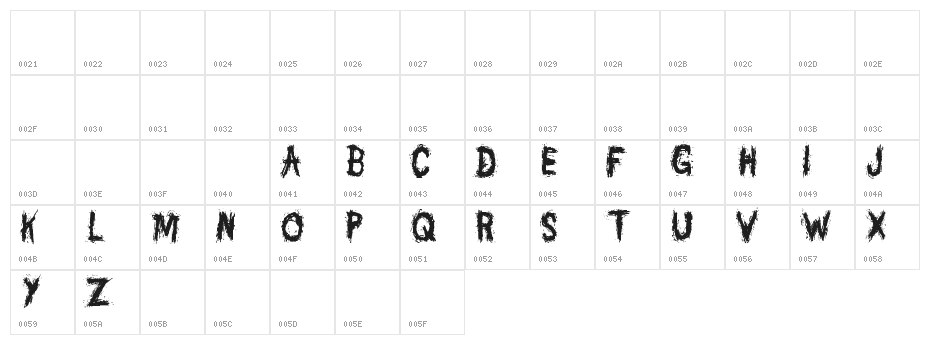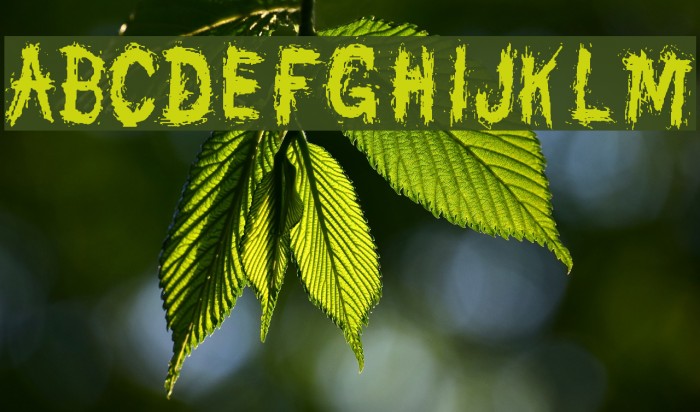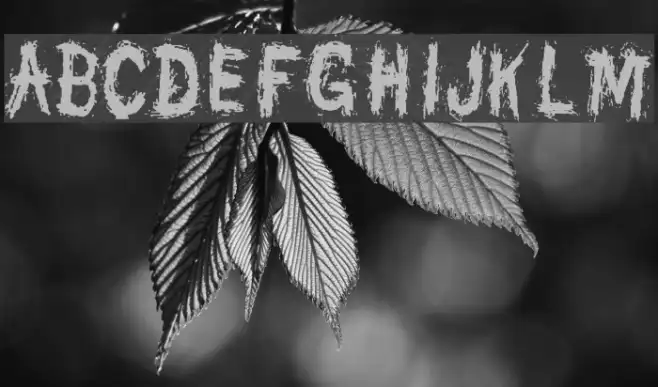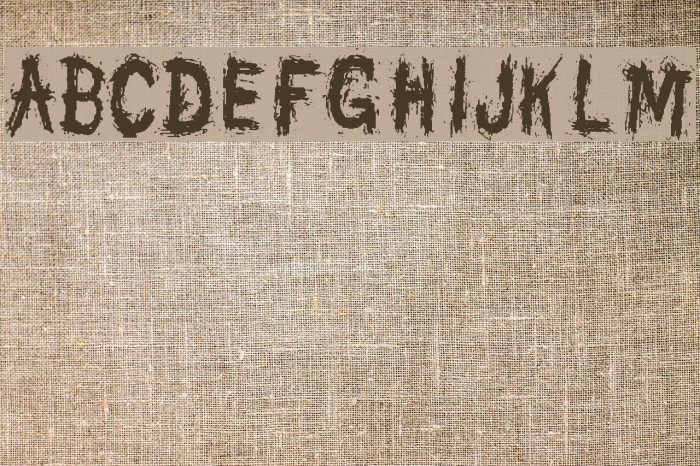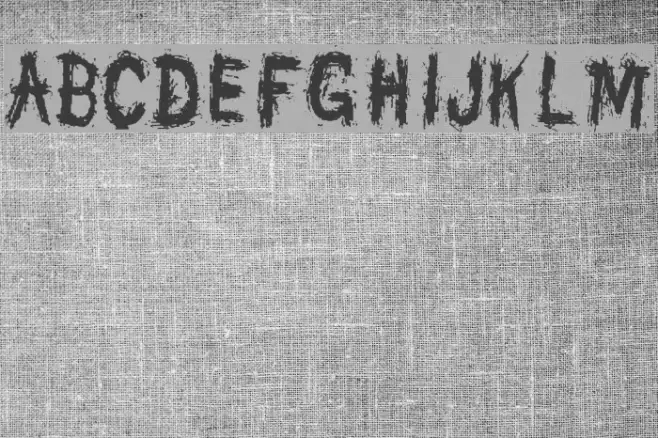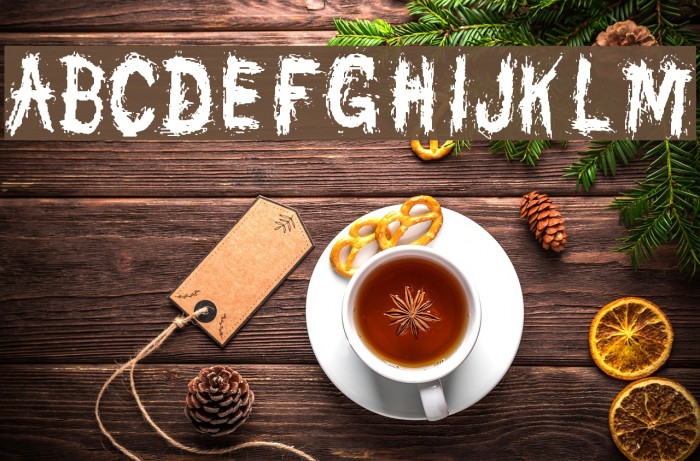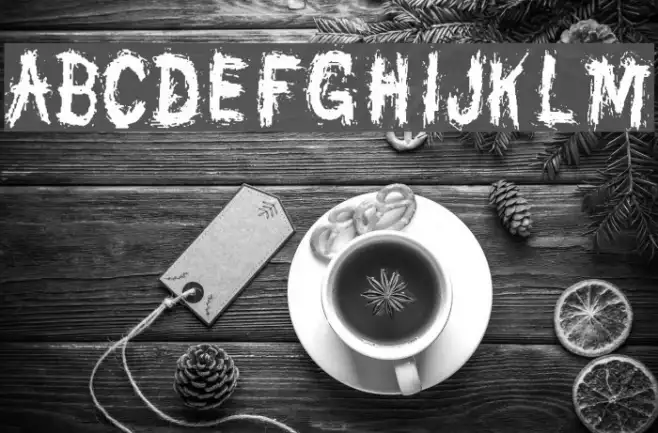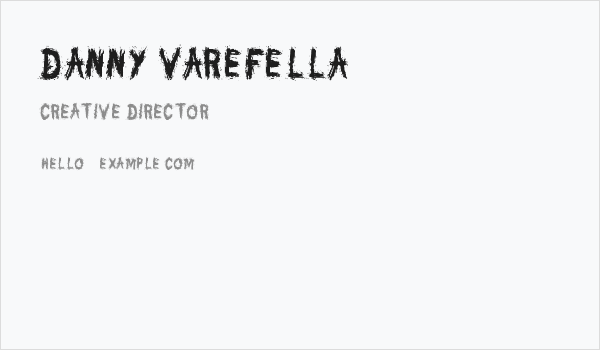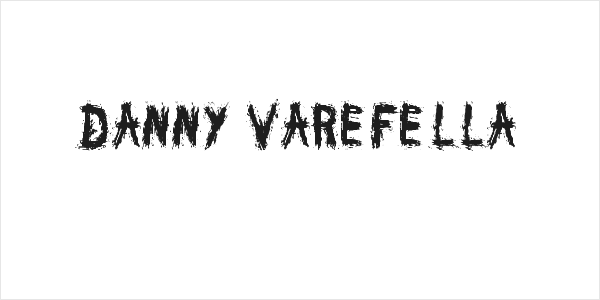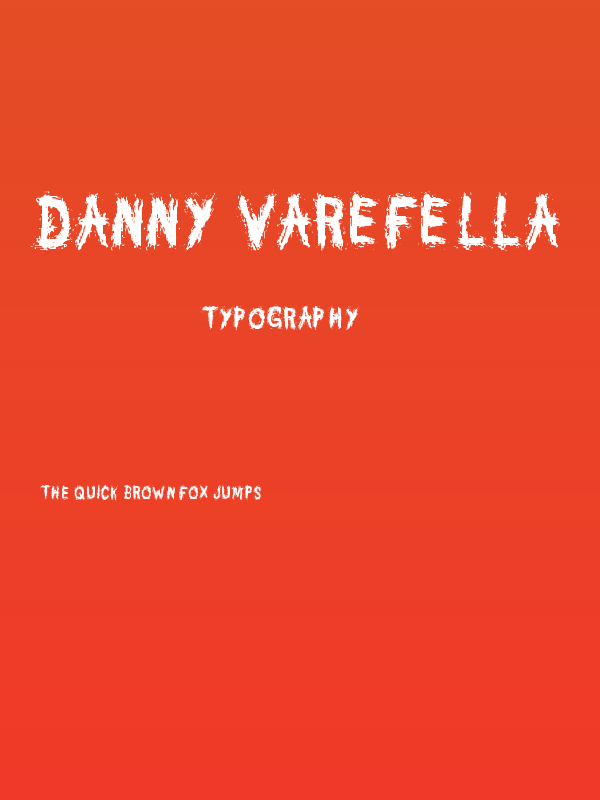
Danny Varefella Font
Danny Varefella Description
This font features a rugged, distressed appearance with a brush-like texture, giving it a raw and edgy feel. The characters are bold and heavily textured, resembling strokes of paint or ink that have been applied with a rough brush. This creates a dynamic and energetic look, perfect for grabbing attention. The uppercase letters are consistent in height, while the overall style maintains a sense of chaos and movement. The irregular edges and varying stroke widths add to its unique, handcrafted aesthetic.
| Proposed Projects | Ideal for projects requiring a bold statement, such as posters, album covers, or branding for edgy or artistic ventures. |